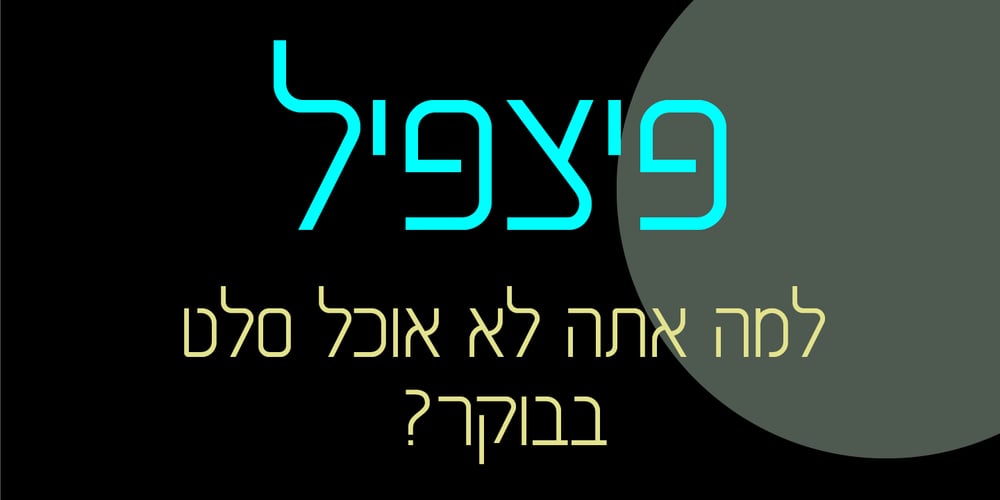
Brutto MF Font Family was designed by Zvika Rosenberg and published by Masterfont. Brutto MF contains 3 styles and family package options. This clean and geometric font family will suit you as a great companion fo signage, headline, website and much more.